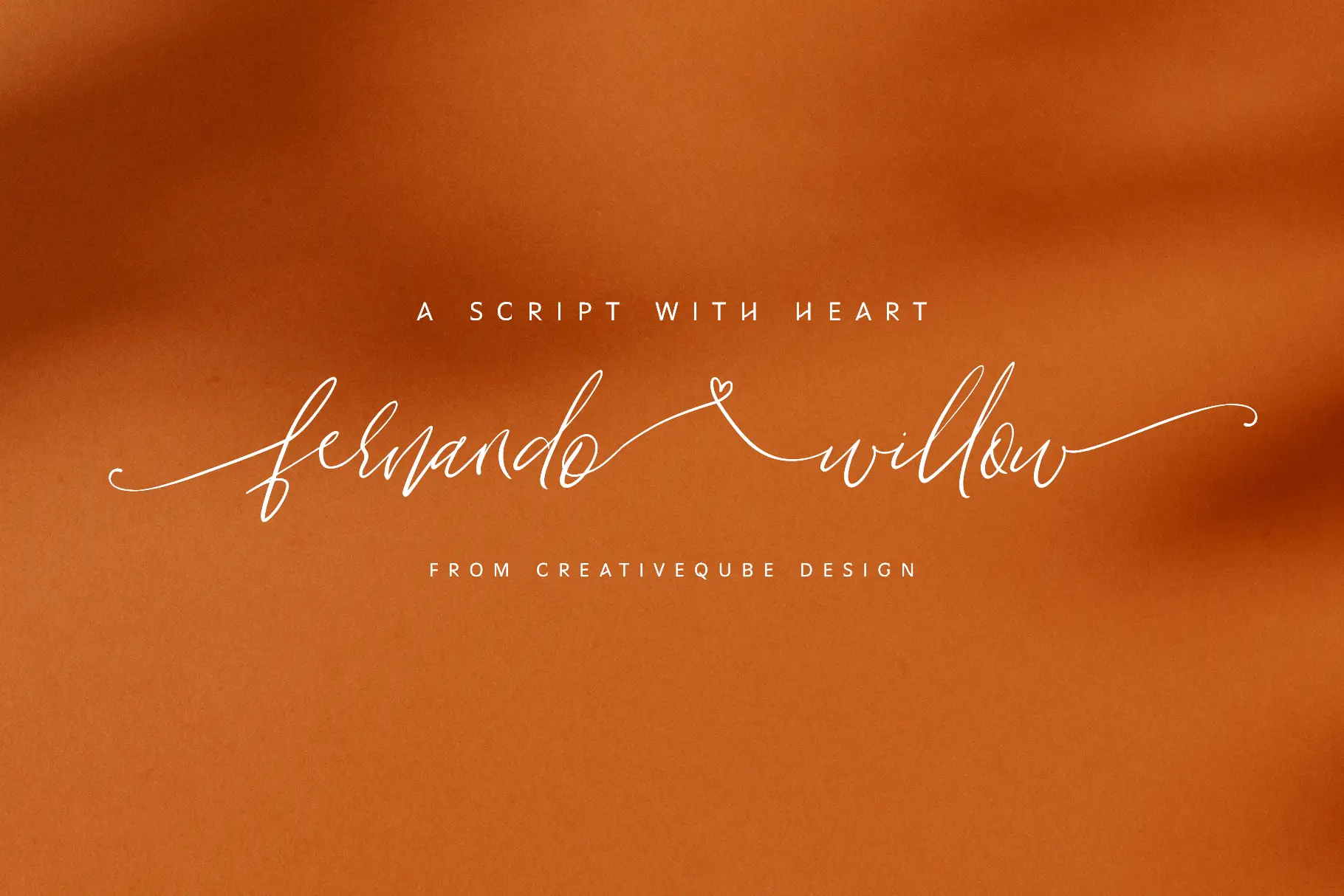
Fernando Willow Font By Creativeqube Design
The Fernando Willow Font by Creativeqube Design features a unique blend of elegance and modernity, making it an excellent choice for various design projects. This font showcases a stylish script style with graceful curves, perfect for adding a touch of sophistication to your work.
• Style: Script
• Weights: Regular
• Ideal for branding projects and logos.
• Perfect for invitations, greeting cards, and social media graphics.